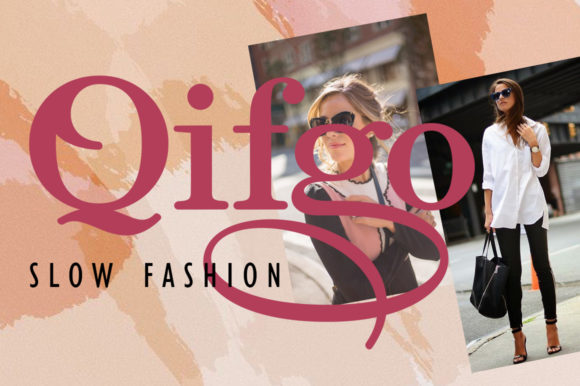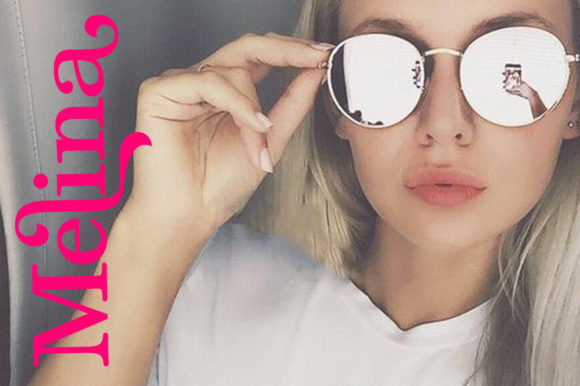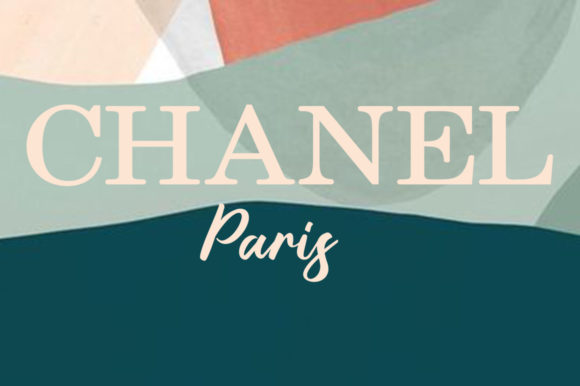
Introduction to Molin Font Font
Fonts play a crucial role in design, and the Molin Font font is a typeface that brings both character and versatility to any project. Whether you’re working on a branding project, a website, or a print design, the Molin Font font offers a unique style that can elevate your work.
| 📌 Font Name | Molin Font |
| 👤 Author | Aqeela Studio |
Molin is a beautiful serif font with an incredibly authentic feel.
Get inspired by its bold charm, and turn any design idea into a true standout .
Key Features of Molin Font Font
Why Choose Molin Font Font?
The Molin Font font is more than just a typeface – it’s a design tool that helps you communicate your message with style and clarity. Its unique character set and versatile design make it suitable for a wide range of applications, from elegant invitations to bold headlines.
With its carefully crafted letterforms and balanced proportions, the Molin Font font ensures readability and visual appeal across all mediums.
What makes Molin Font font special?
The Molin Font font stands out with its unique design, exceptional readability, and versatility across various design applications.